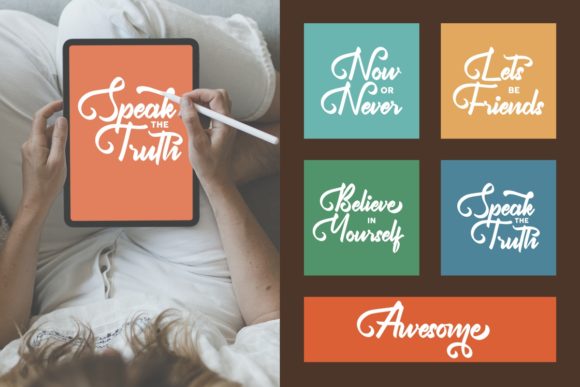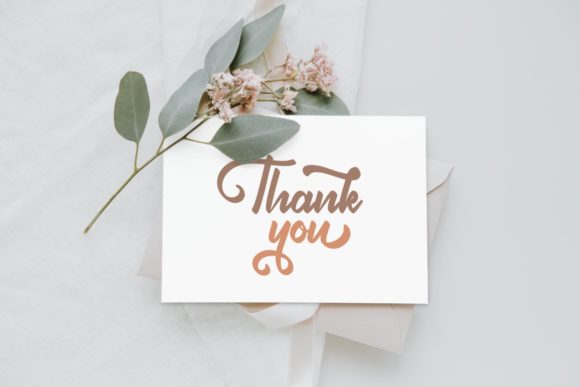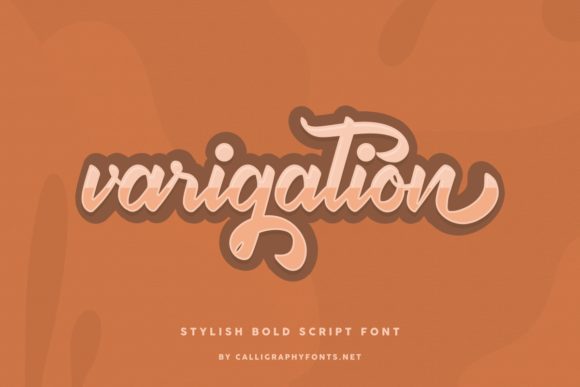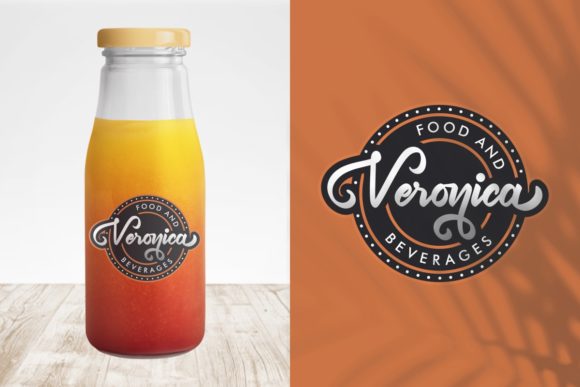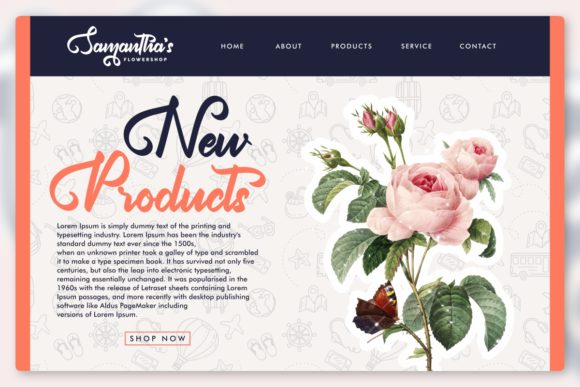
About Varigation Font
Varigation is a stunning and assertive handwritten font that adds a stylish touch to your headlines and logotype projects. With its bold and confident letterforms, this font exudes strength and dynamism, while also carrying a nostalgic charm.
The unique and eye-catching style of Varigation captures attention and makes a bold statement. Whether you’re designing a logo, creating headlines for a publication, or working on any project that requires a strong visual impact, Varigation is a font that commands attention.
The assertive nature of Varigation adds a sense of confidence and power to your designs. The bold strokes and distinct letterforms make a strong visual impression, allowing your message to stand out and leave a lasting impact on your audience.
One of the key features of Varigation is its nostalgic character. The handwritten style of the font evokes a sense of authenticity and craftsmanship, reminiscent of vintage signage and hand-painted lettering. This adds a touch of nostalgia and a unique personality to your designs, setting them apart from more generic typefaces.
Varigation’s versatility allows it to be used in a wide range of design projects. Whether you’re working on branding and identity, advertising materials, packaging, posters, or any other creative endeavor, this font can add a stylish and memorable element to your compositions.
When used in logotype projects, Varigation brings a distinct personality and character to your brand. Its strong and confident appearance can help communicate the values and essence of your business or organization. The nostalgic charm of the font adds a touch of authenticity, making your brand stand out from the crowd.
In summary, Varigation is a gorgeous and assertive handwritten font that adds a stylish and nostalgic touch to your designs. With its strong and confident letterforms, it creates a visual impact and carries a sense of nostalgia. Whether you’re working on headlines, logotypes, or any other design project, Varigation brings a dynamic and memorable quality to your compositions.